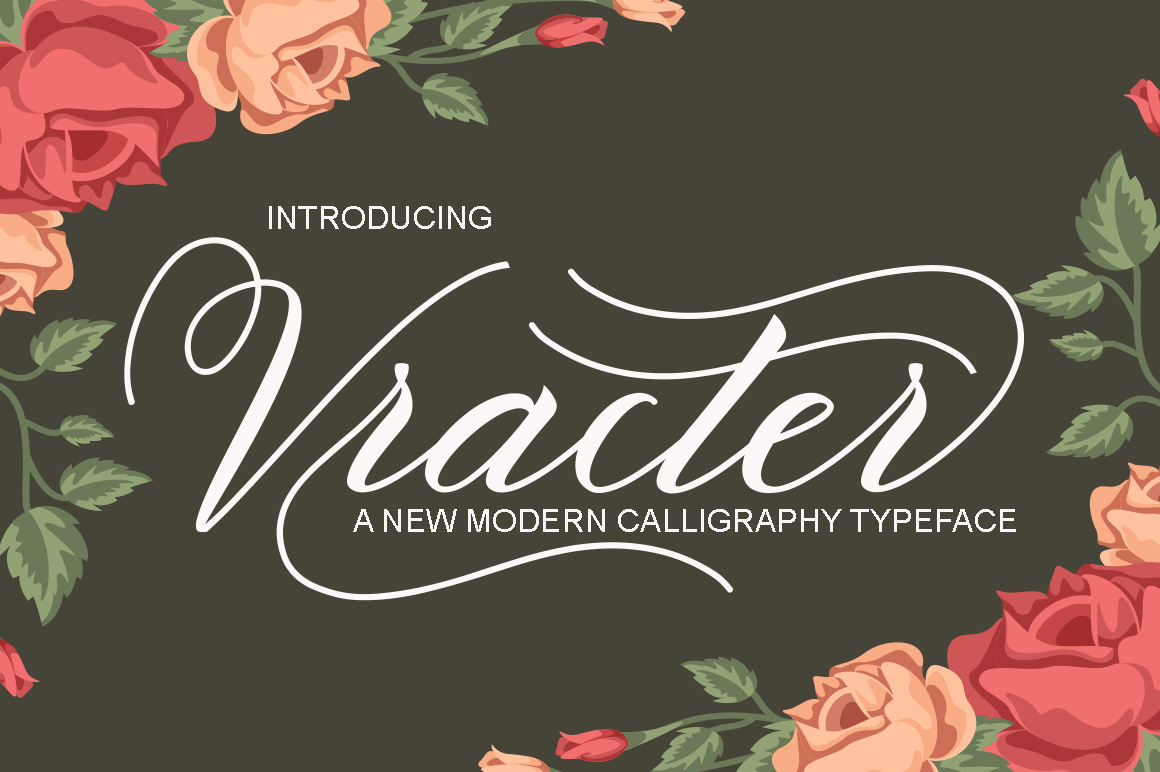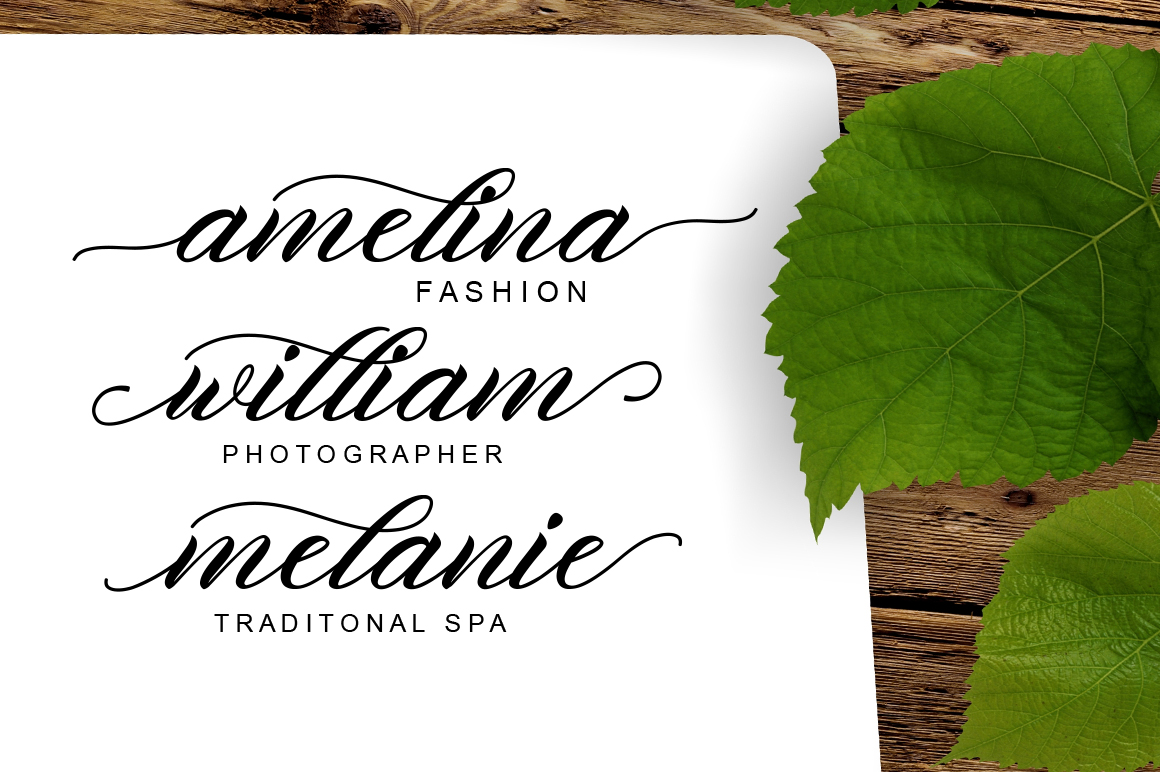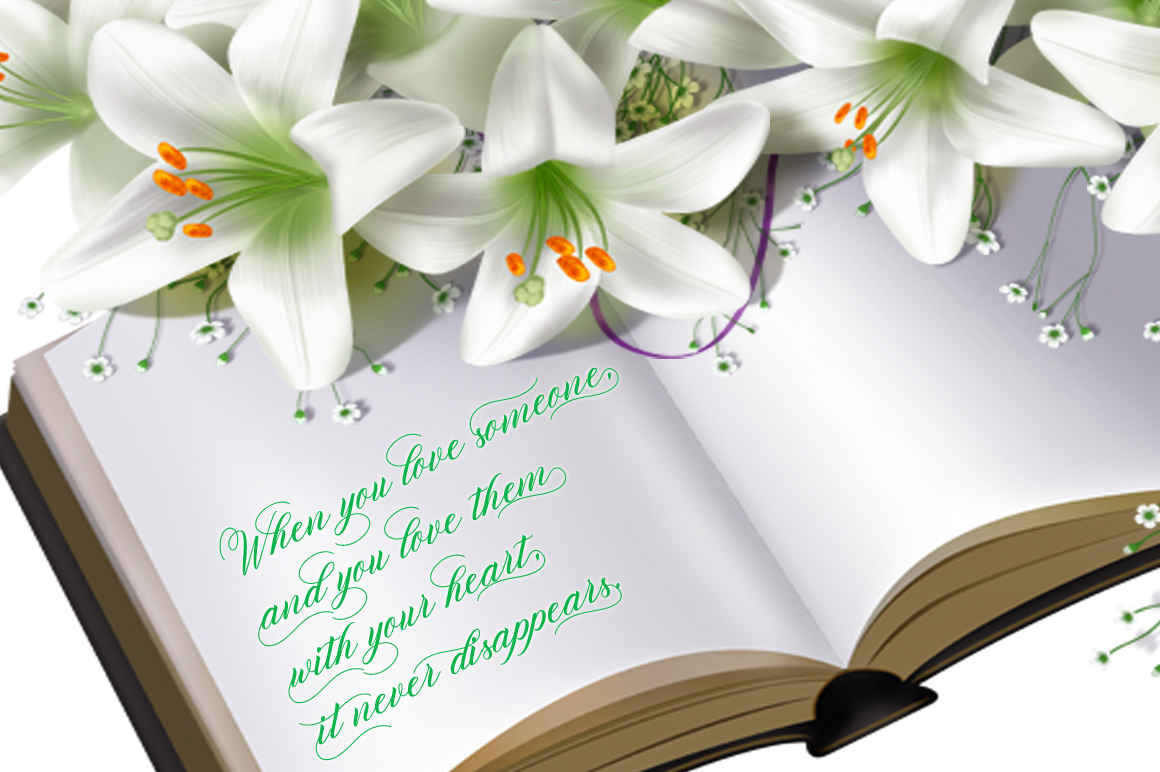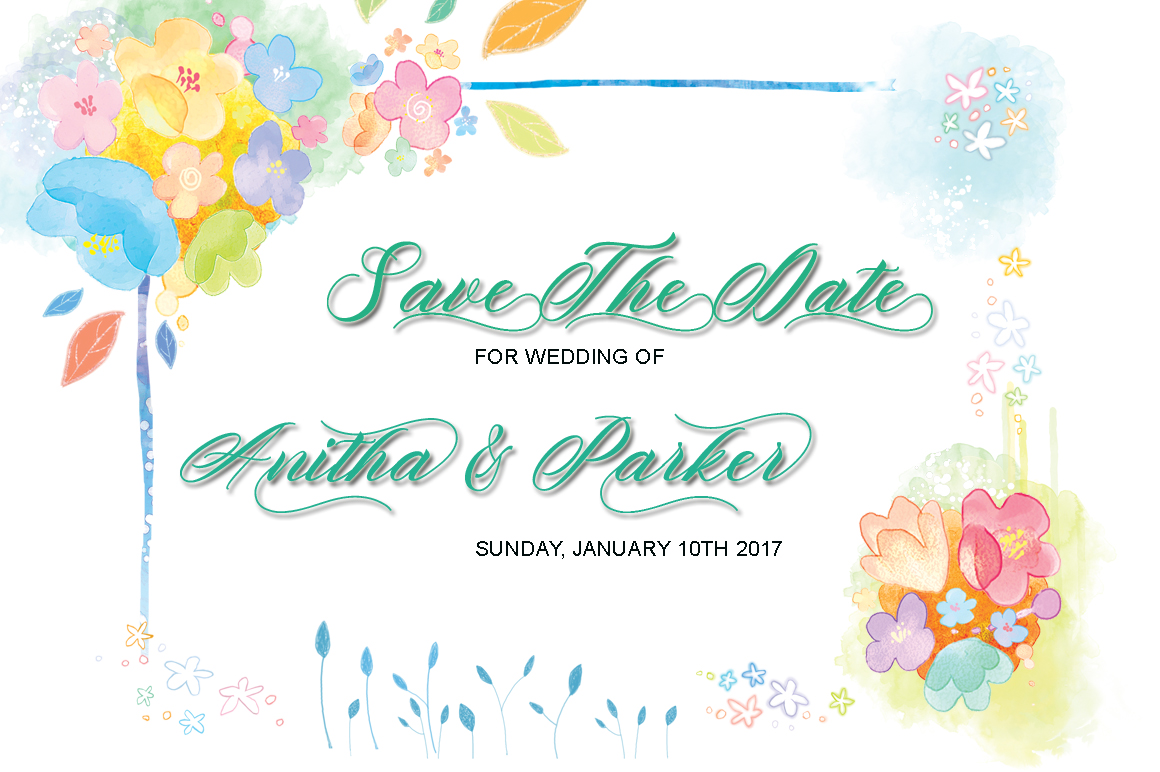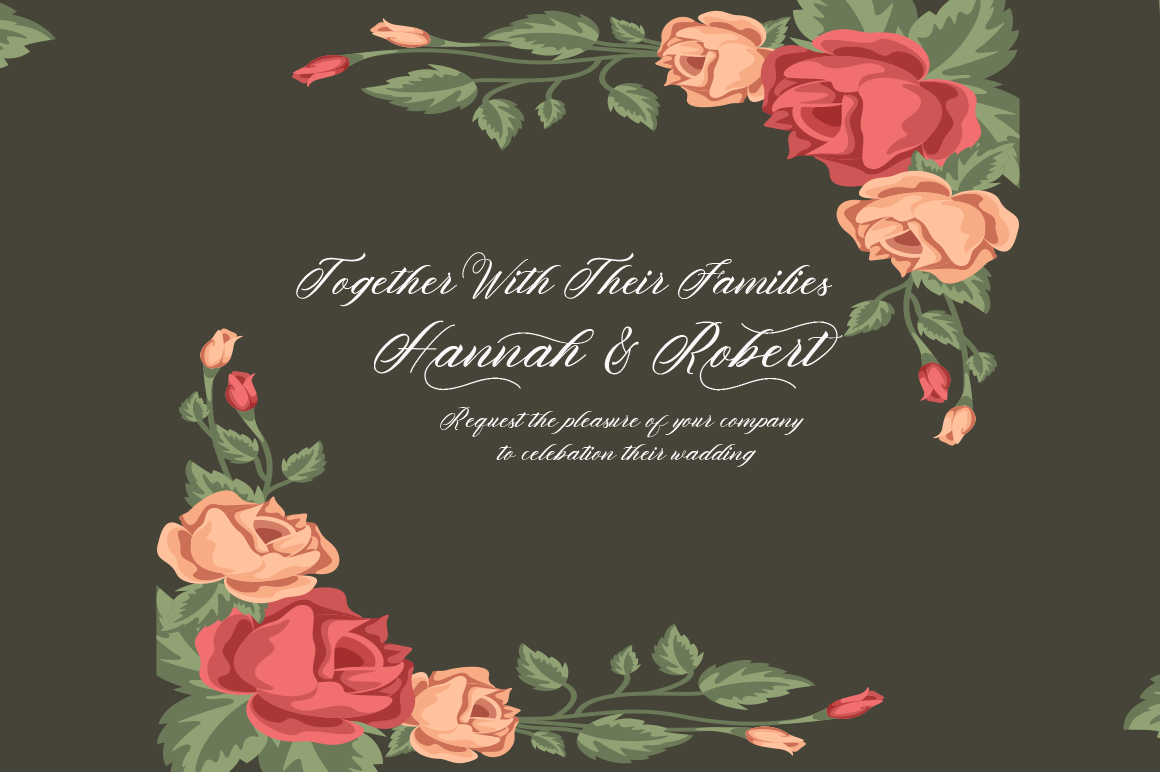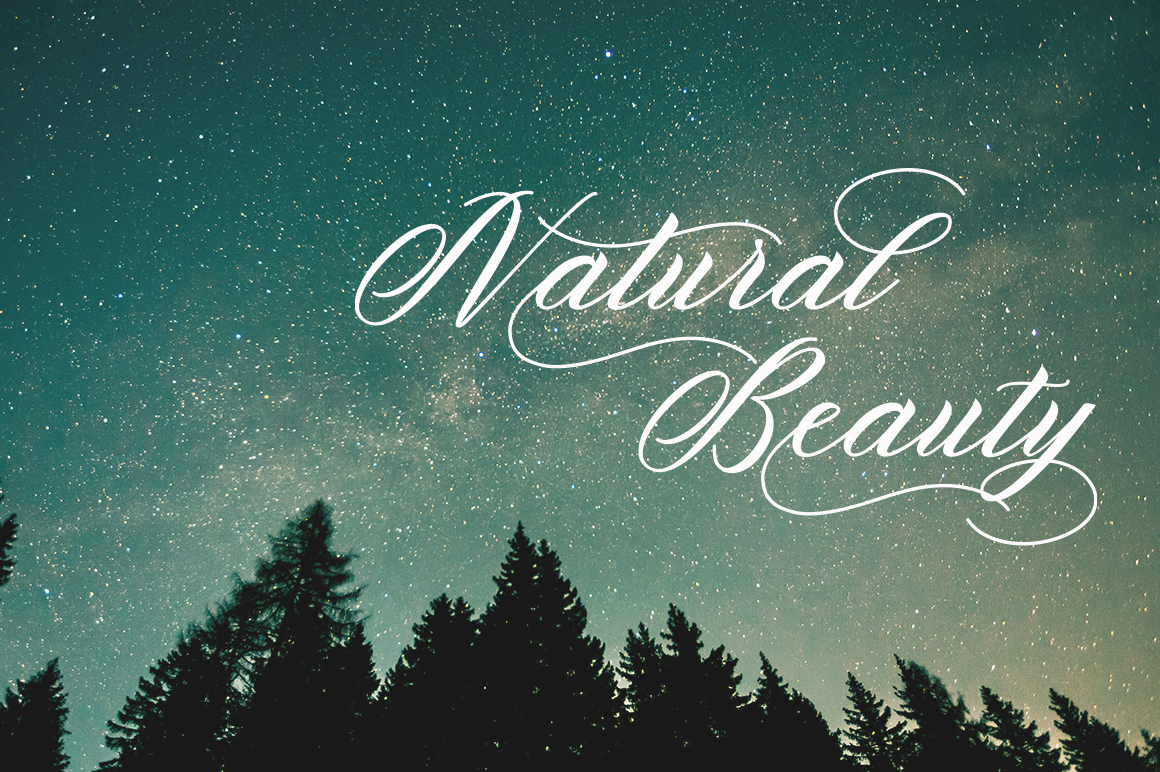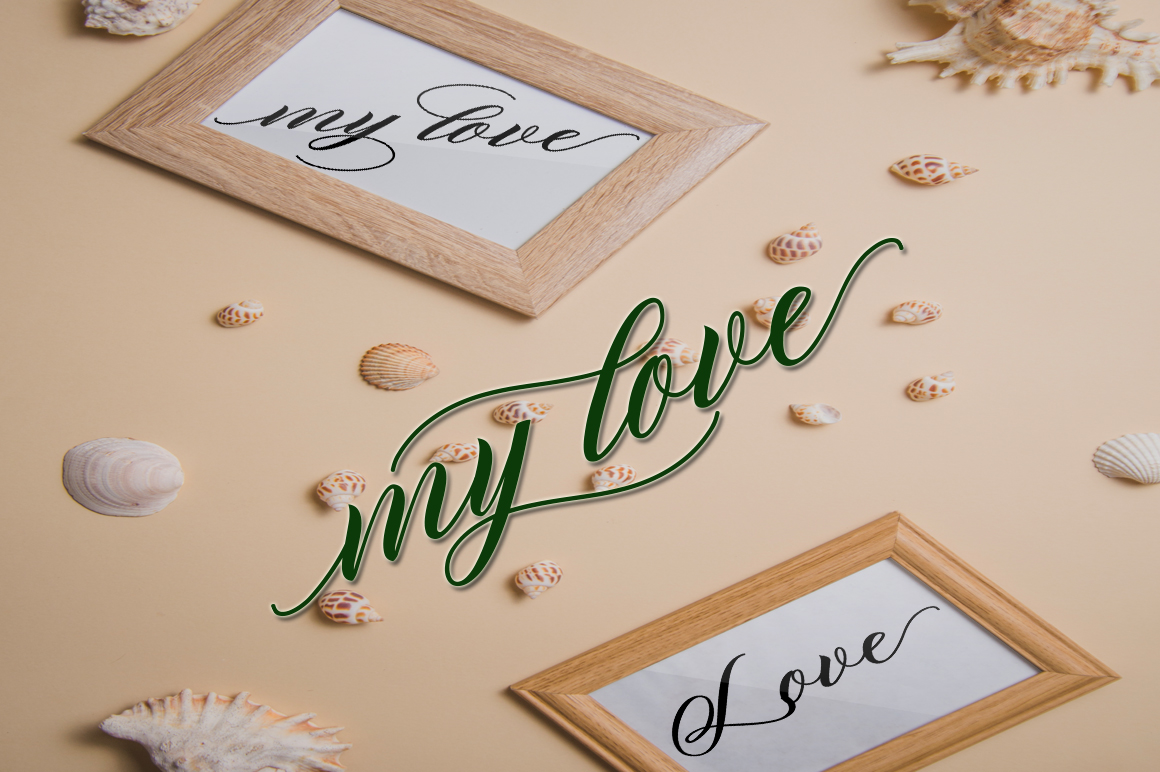
Vracter Font
About Vracter Font
The Vracter font duo is a stylish calligraphy duo. It features smooth lines and can be used in any project that requires a personal touch. It comes packed with over 549+ glyphs and 347 alternates.